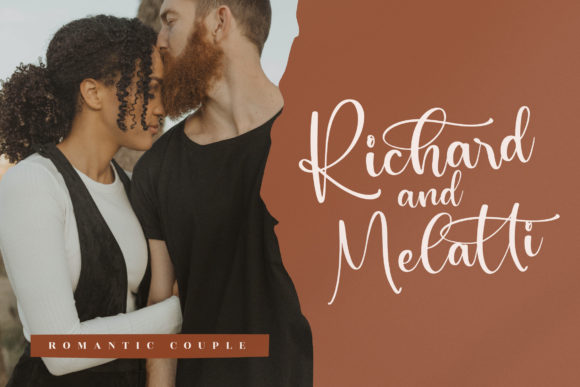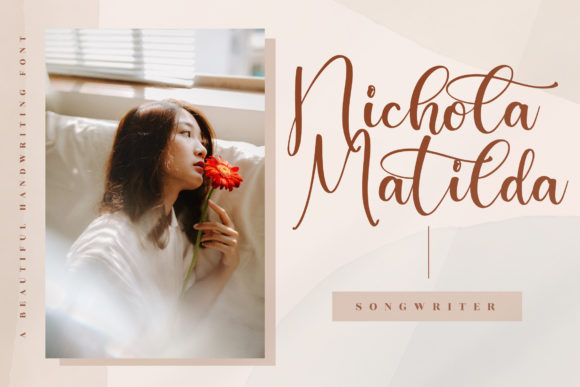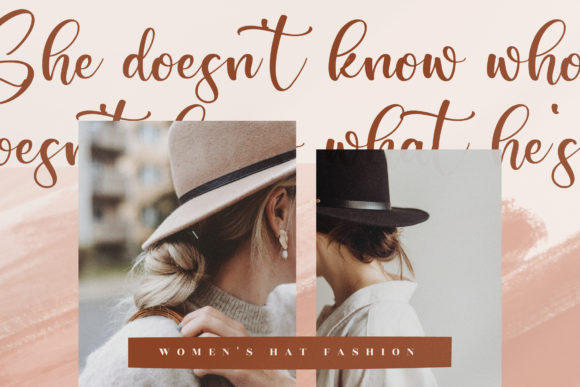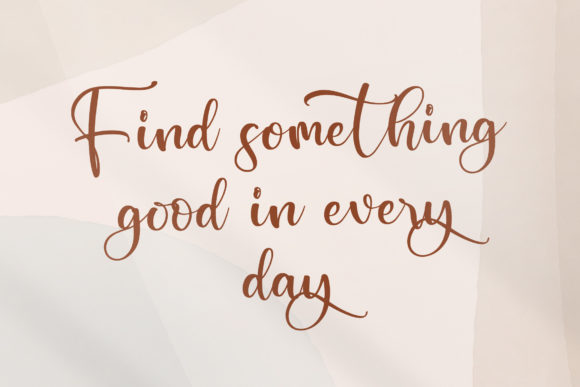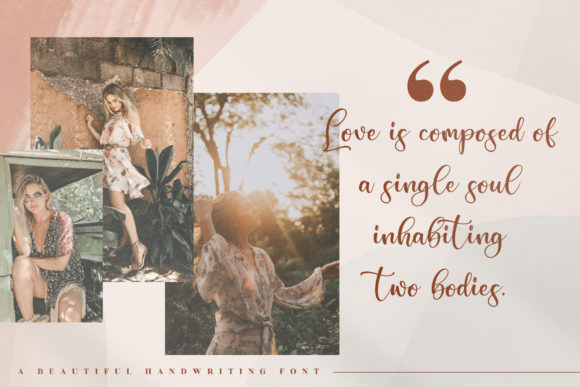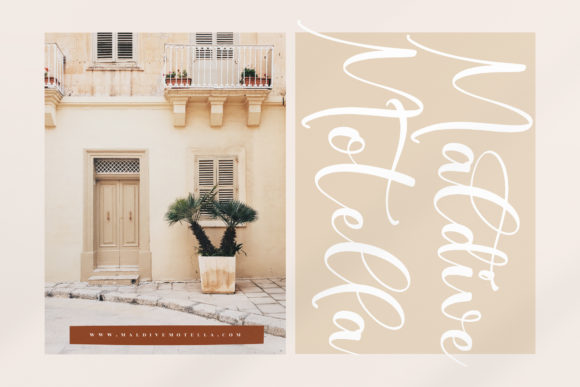
The Elliott Font: A Bold and Beautiful Handwritten Style
An Honest Review of Elliott Font
- ✅ Sophisticated and bold: Elliott has a unique blend of sophistication and boldness that makes it perfect for headlines, titles, and emphasis text.
- ✅ PUA encoded: The font is PUA encoded, which means you can access all glyphs and swashes with ease, making it incredibly versatile.
- ✅ Charming and authentic: Elliott has a distinctive charm that adds a touch of personality to any design project.
While Elliott is an amazing font, there are a few things to keep in mind:
- 🤔 Legibility at small sizes: Like many script fonts, Elliott can be a bit tricky to read at small sizes. Make sure to test it out at different sizes to ensure it’s legible for your project.
- ⚠️ Overuse of swashes: While the swashes in Elliott are beautiful, it’s easy to overdo it. Use them sparingly to add a touch of elegance to your design.
The Story Behind Elliott Font
Elliott was designed by a talented type designer who wanted to create a font that would capture the essence of handwritten elegance. The designer drew inspiration from classic scripts and modern calligraphy to create a unique and sophisticated font.
| Author | Glorytype Studio |
Q: Is Elliott a difficult font to read?
A: Like many script fonts, Elliott can be a bit tricky to read at small sizes. However, it’s generally a clear and legible font that’s perfect for headlines, titles, and emphasis text.